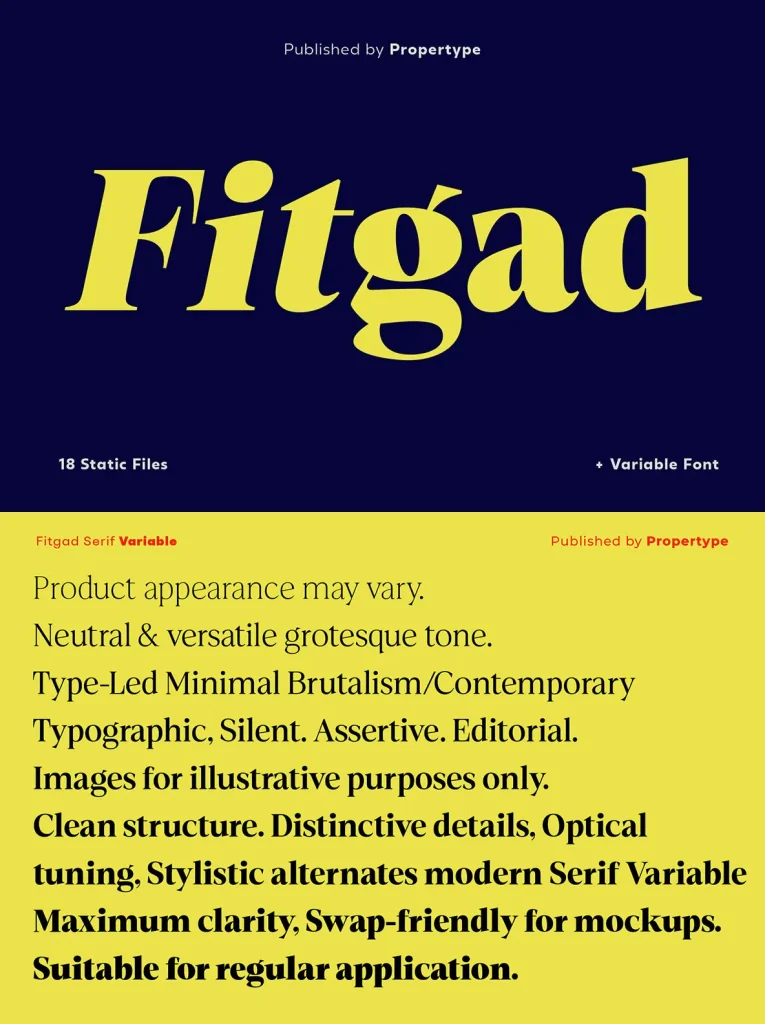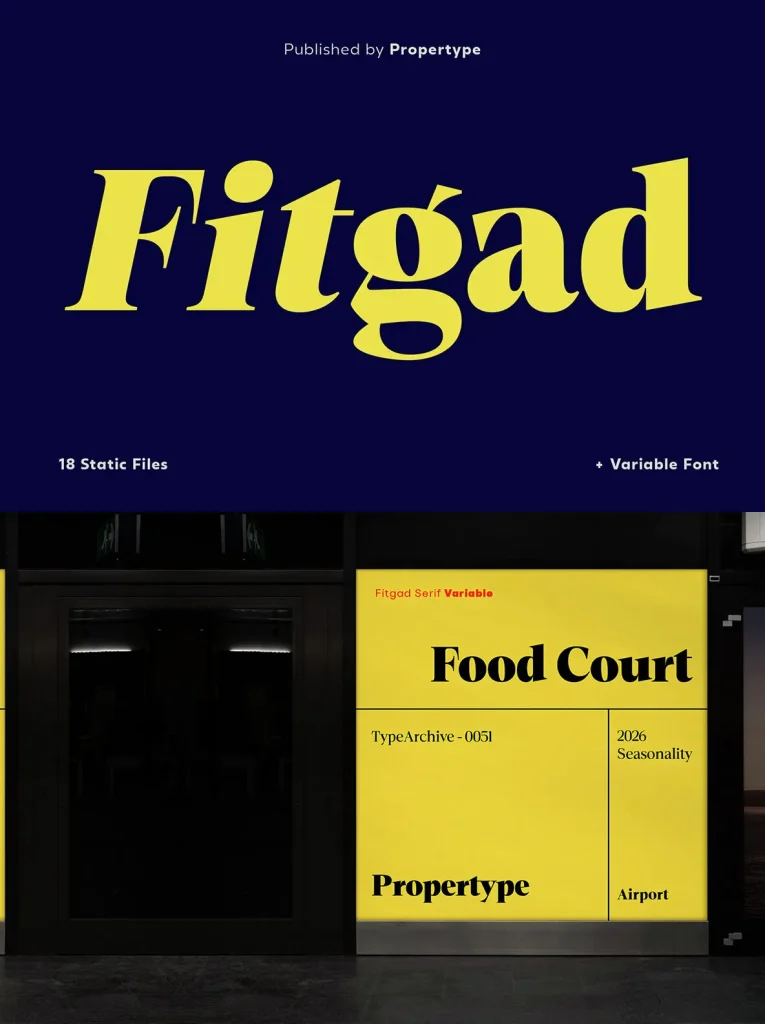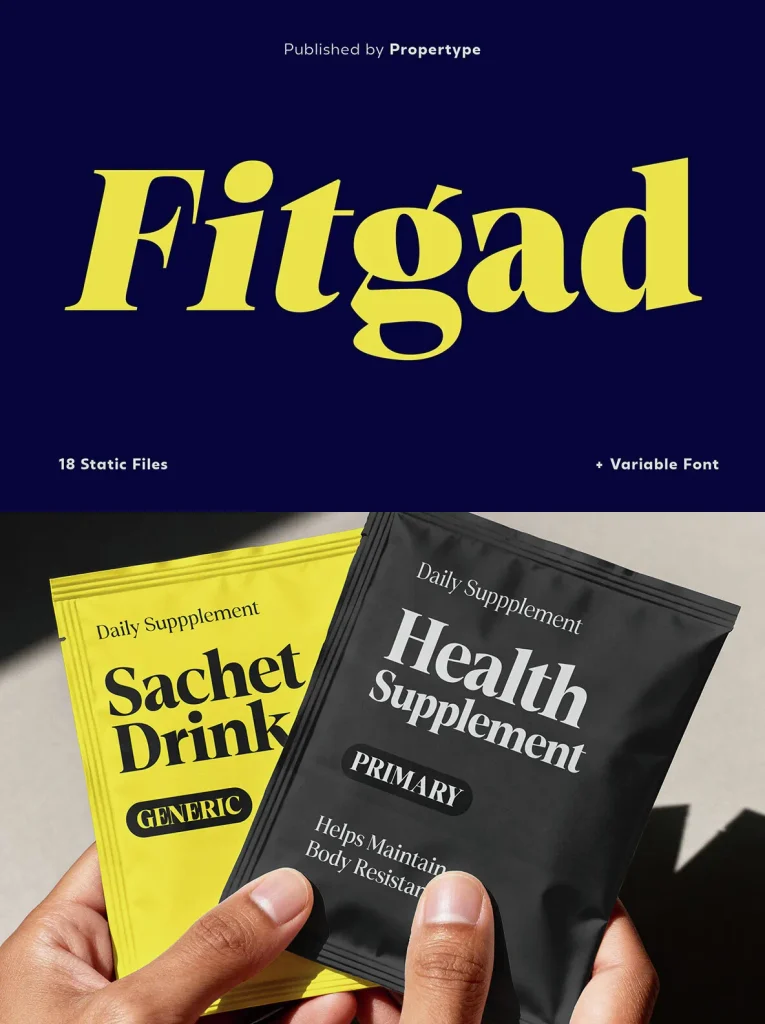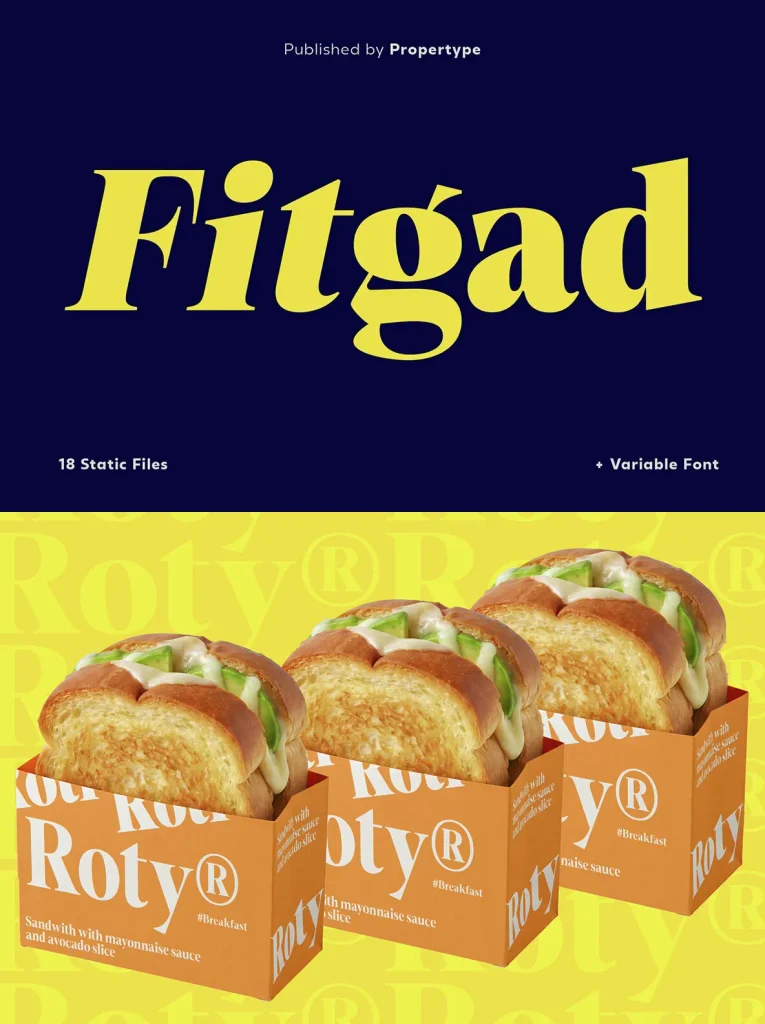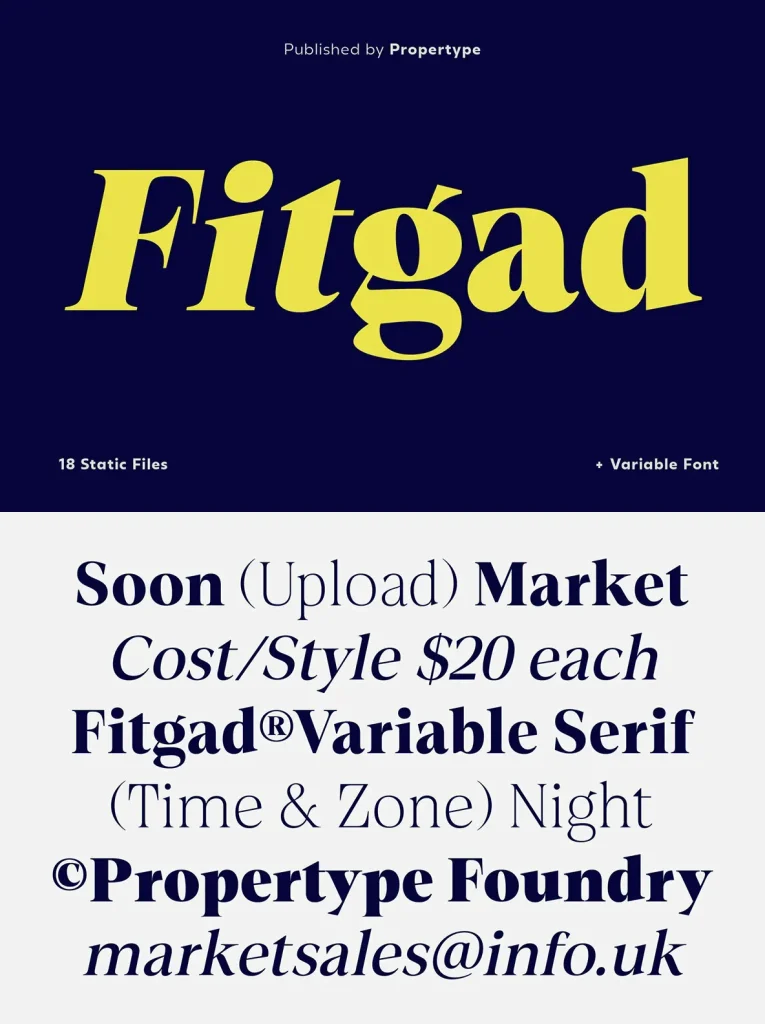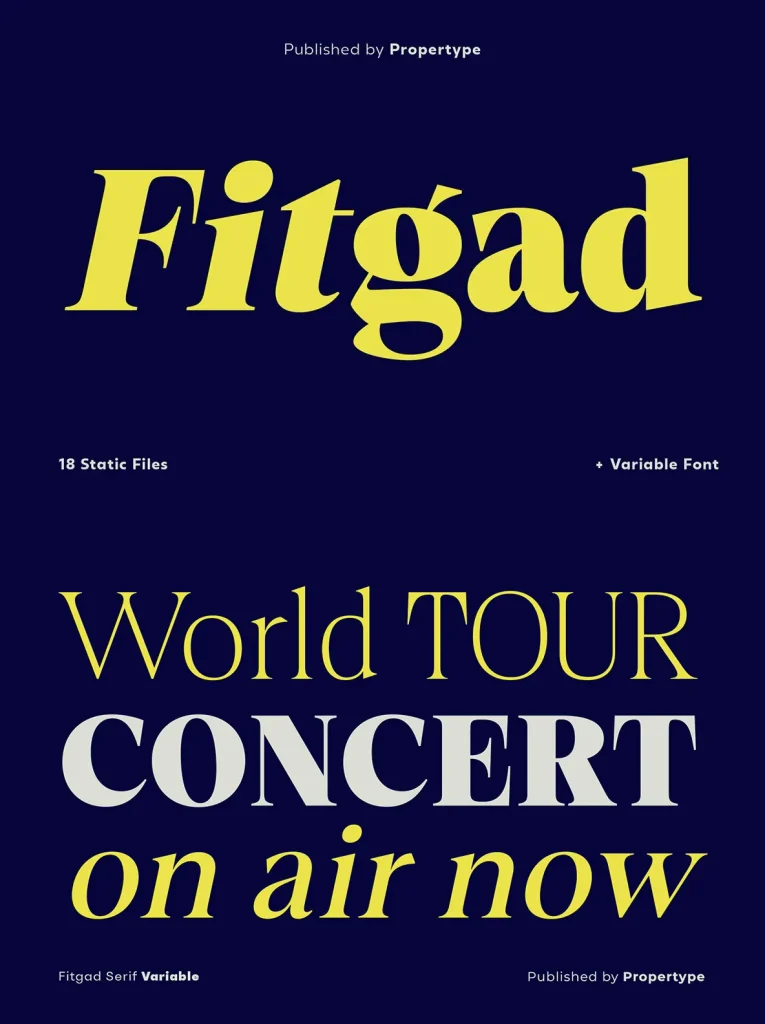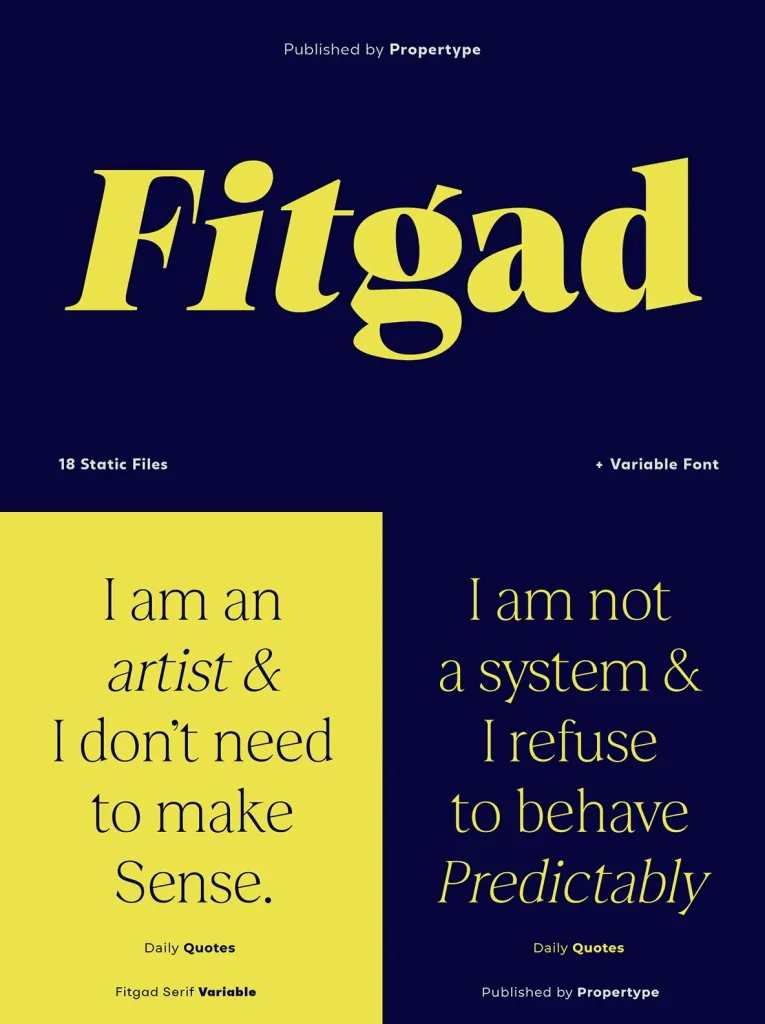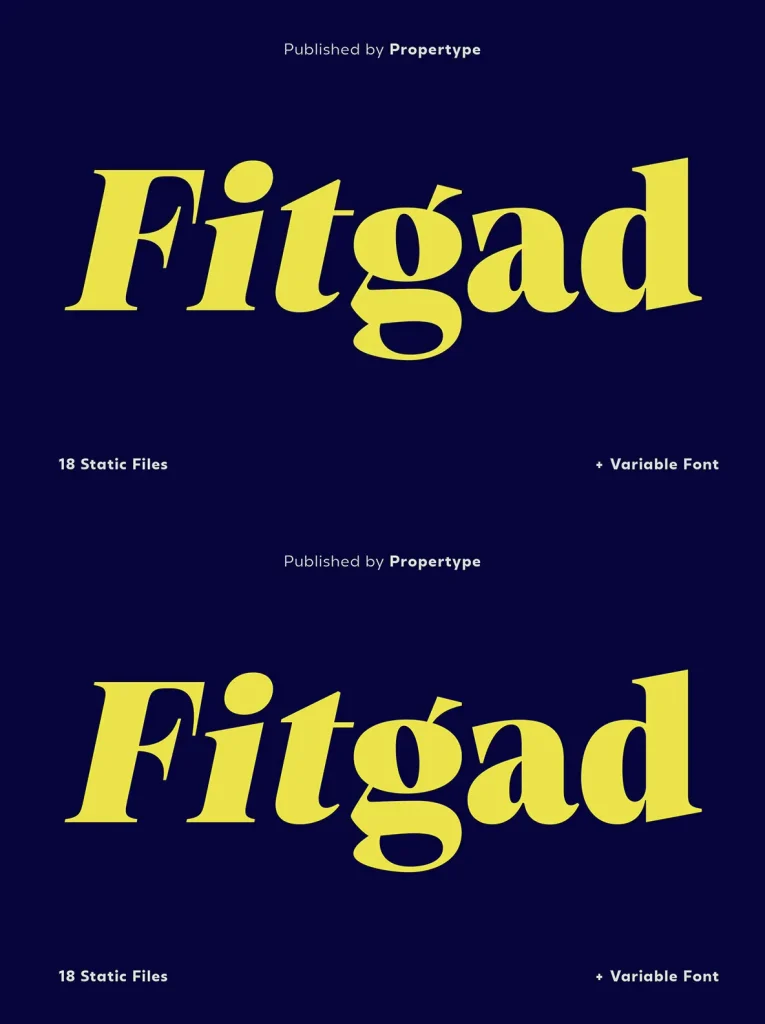
Fitgad — Warm Serif Authority
Fitgad is an elegant, warm serif typeface with a classic feel. Its refined proportions and confident serif structure give text a credible, established voice, making it well suited to visual identities and editorial settings that need clarity, trust, and character.
The family includes 180 fonts in both upright and italic styles, ranging from light to black. It also includes one variable font for flexible typographic control. OpenType features support refined typography, including ligatures, along with multilingual support for broader communication.
Fitgad is a strong choice for branding, magazines, posters, advertisements, print, packaging, headlines, web design, and more. It brings warmth and authority to projects where polished serif typography matters.